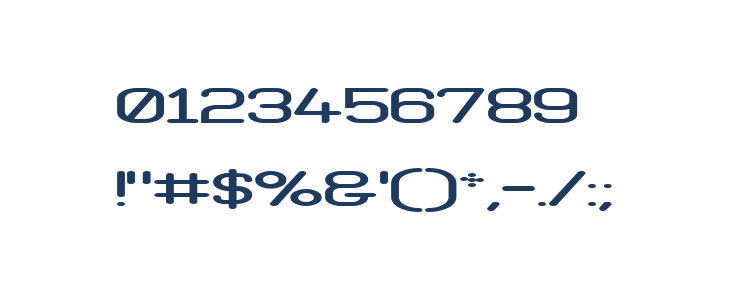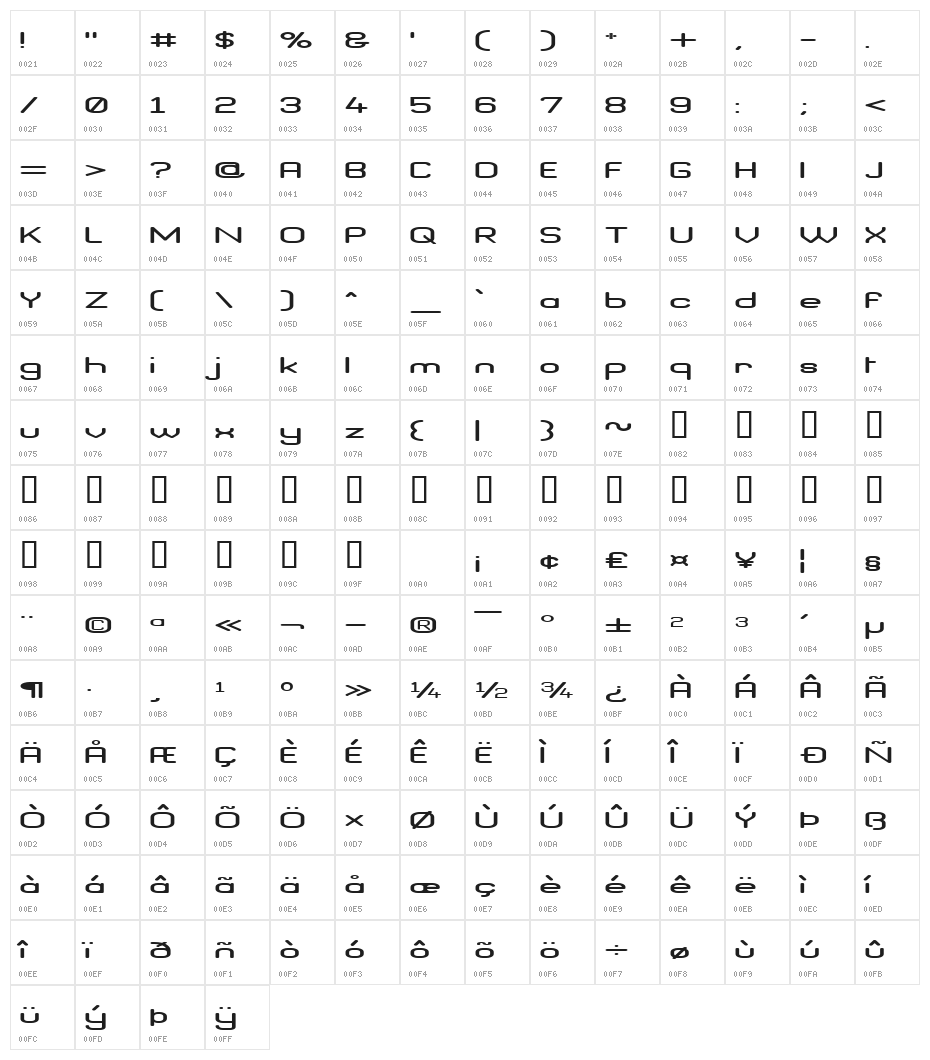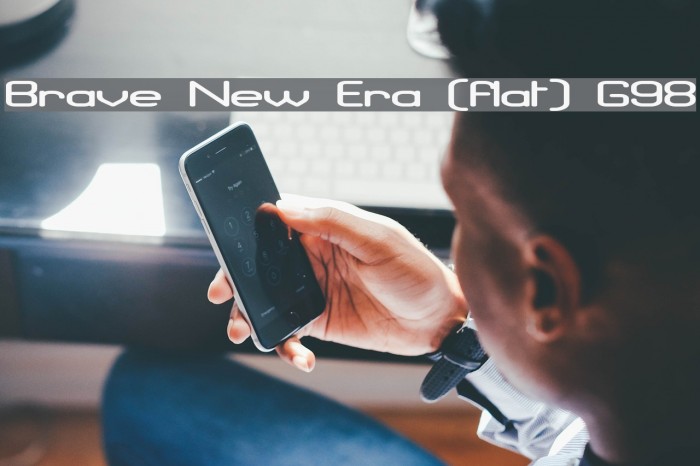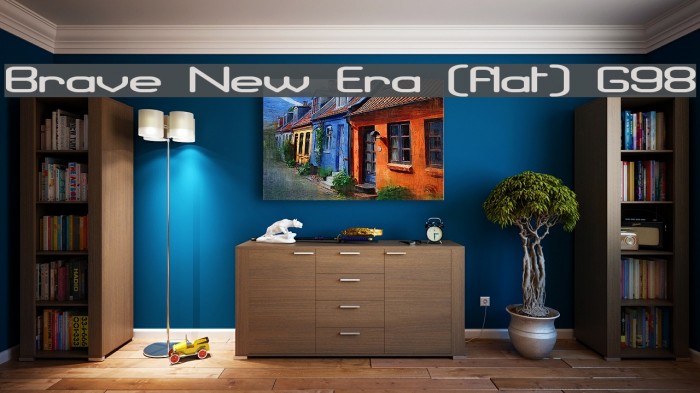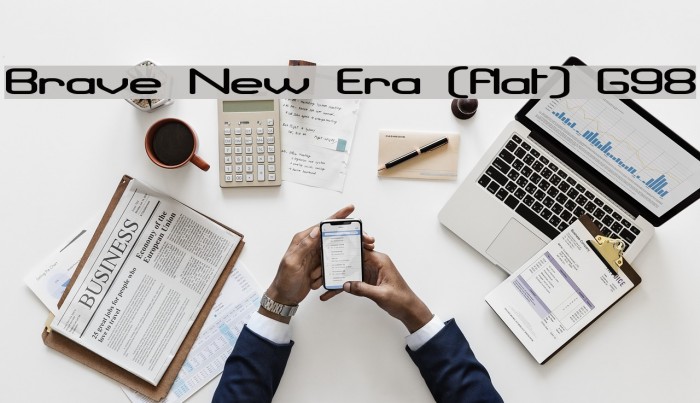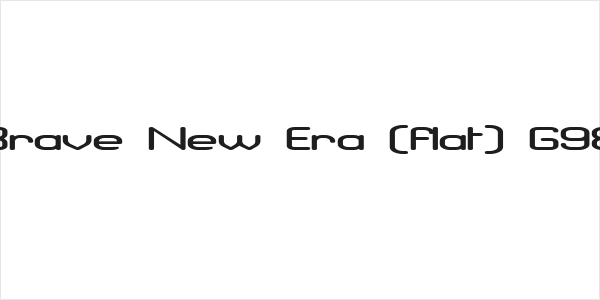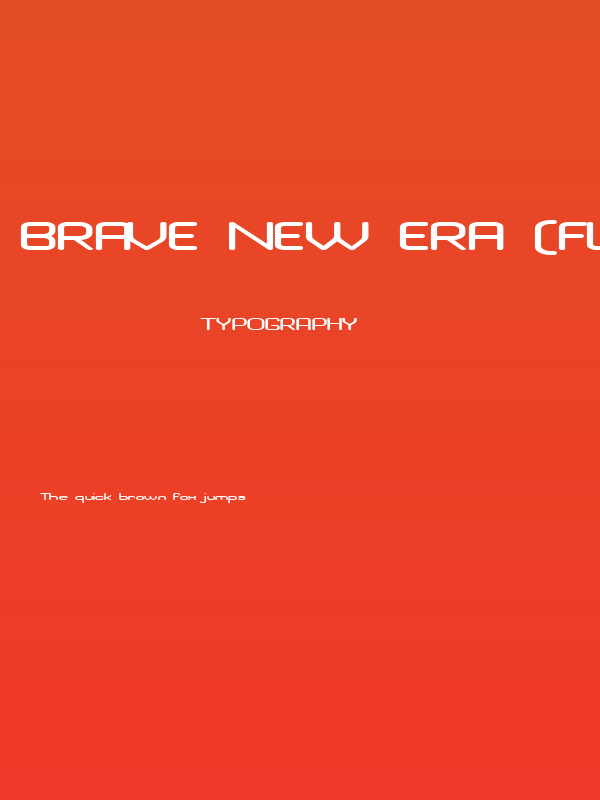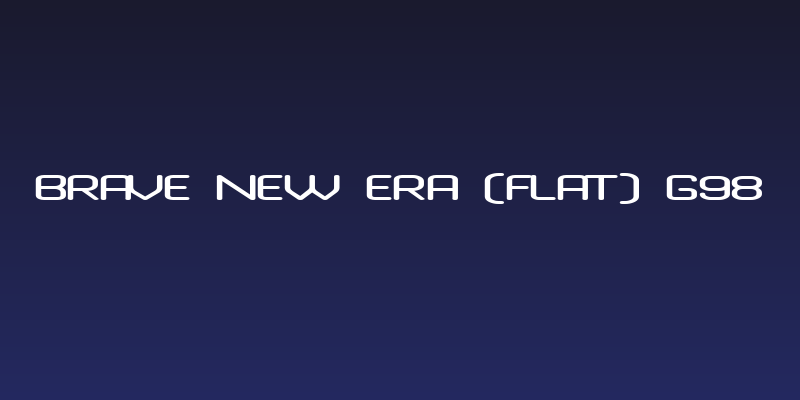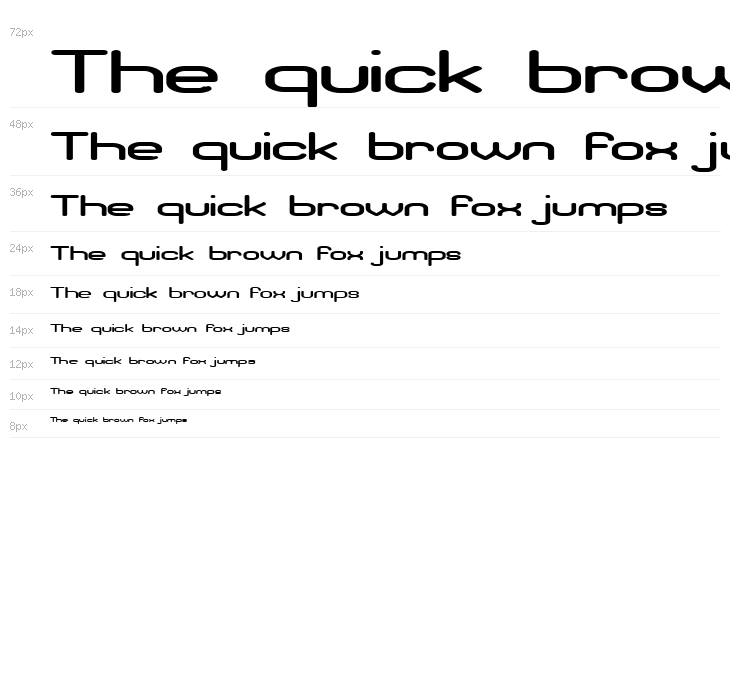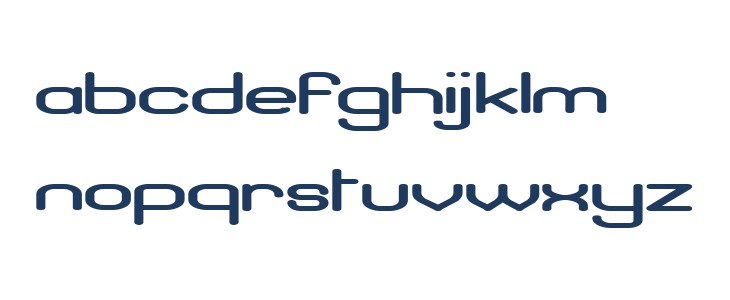
Brave New Era [flat] G98 Font
Brave New Era [flat] G98 Description
This font exhibits a modern and futuristic style with a geometric and rounded appearance. The characters are uniform in height, providing a clean and consistent look. The uppercase and lowercase letters maintain a similar width, contributing to a balanced and harmonious design. The numerals are distinct and easy to read, with a similar rounded structure. Special characters are well-integrated, maintaining the overall aesthetic. The font's smooth curves and lack of sharp edges give it a friendly and approachable feel, making it suitable for contemporary design projects.
| Proposed Projects | Ideal for tech branding, modern web design, and futuristic-themed projects. |